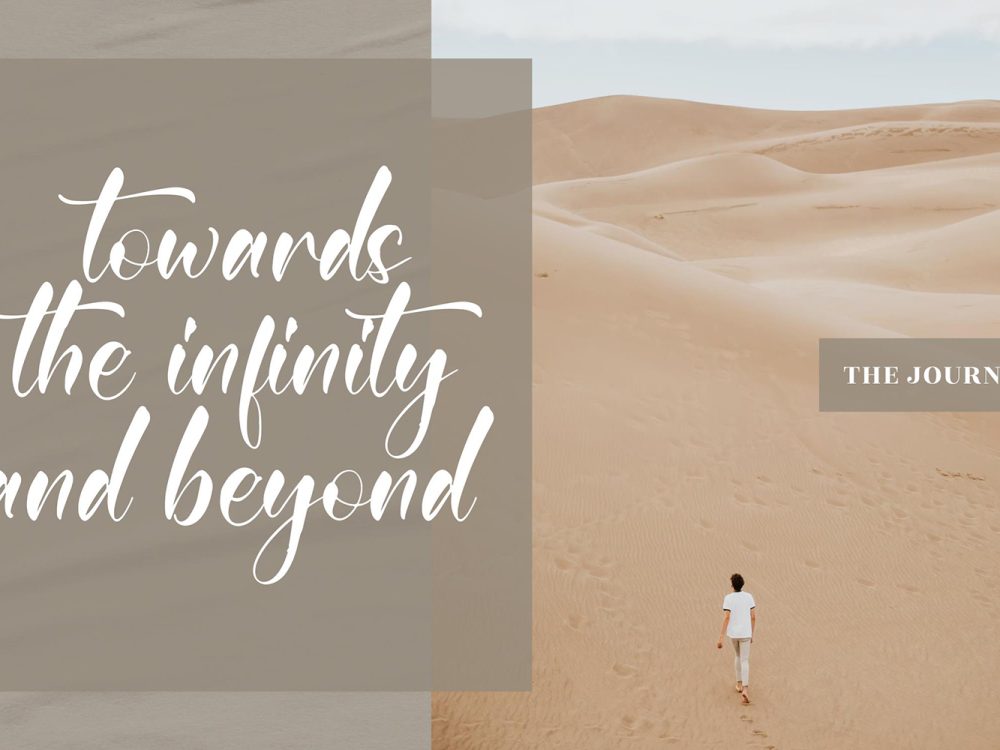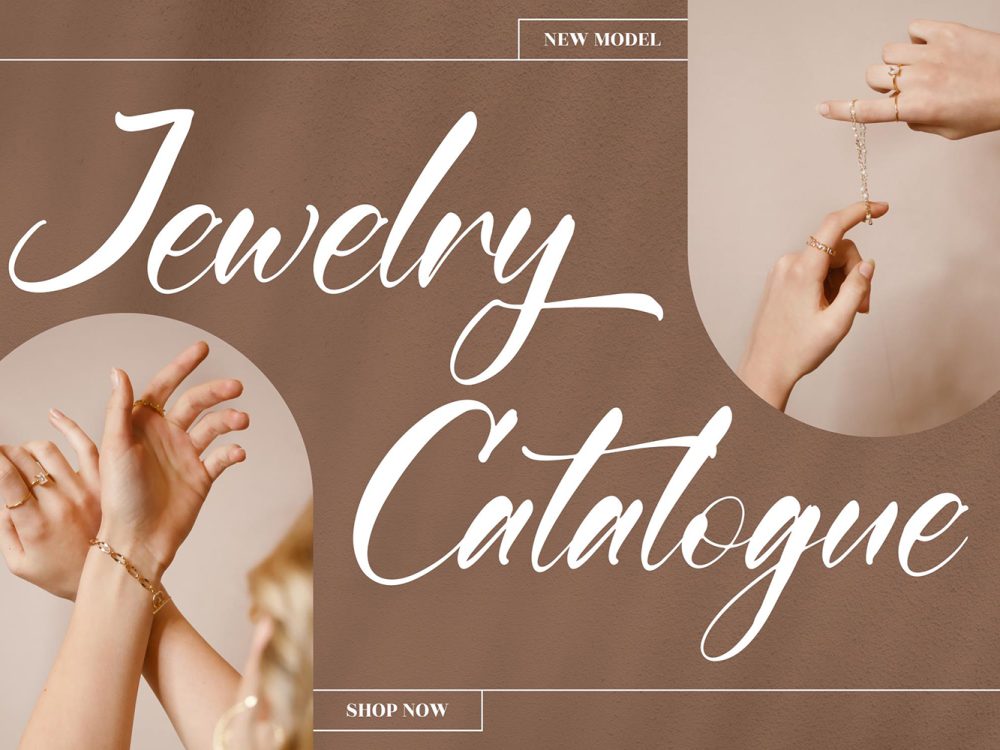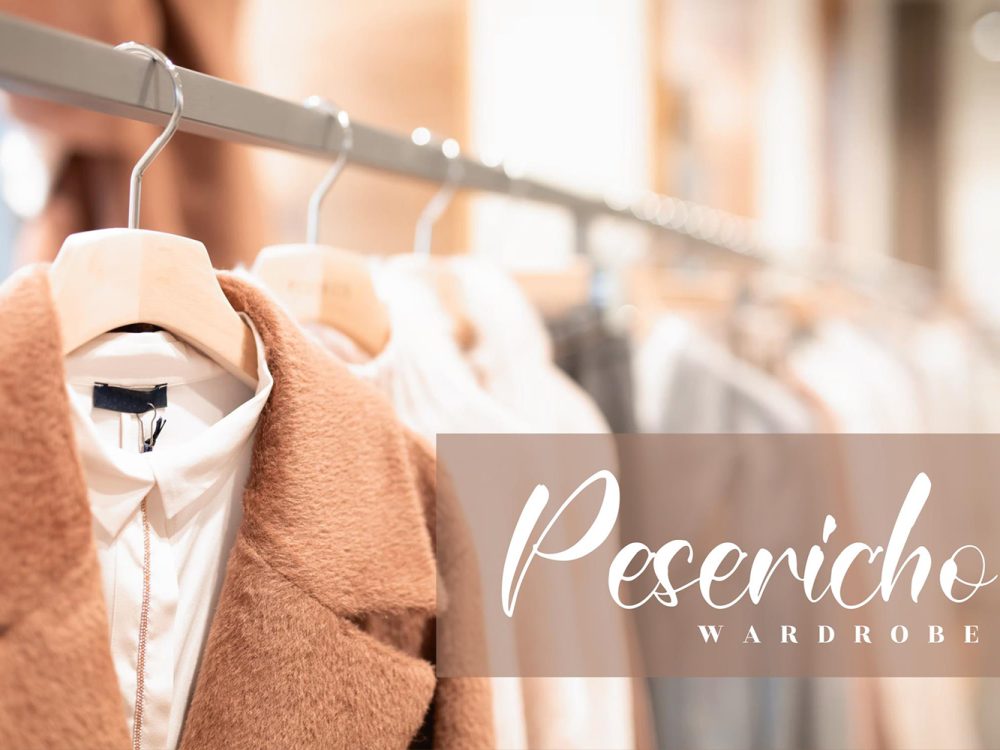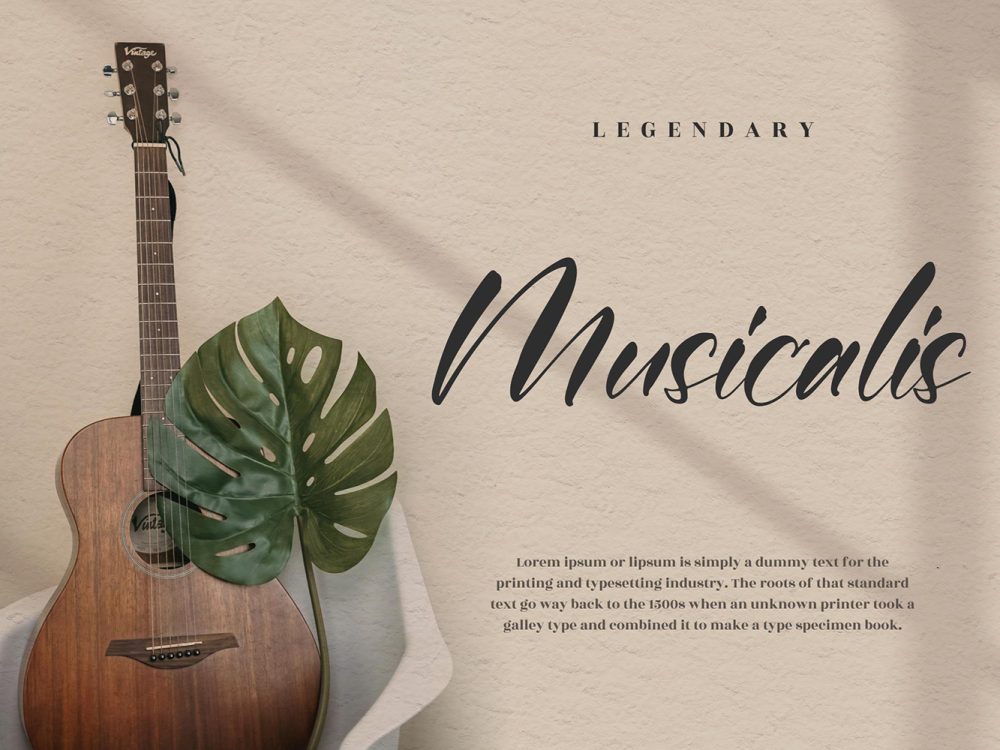
Henrietta Martins: A delightful and graceful handwritten font, radiating a one-of-a-kind character and an impressive allure. Enrich your design projects with a touch of opulence, courtesy of this font, for any creative endeavor you undertake. If you like it don’t forget to check out the full version.